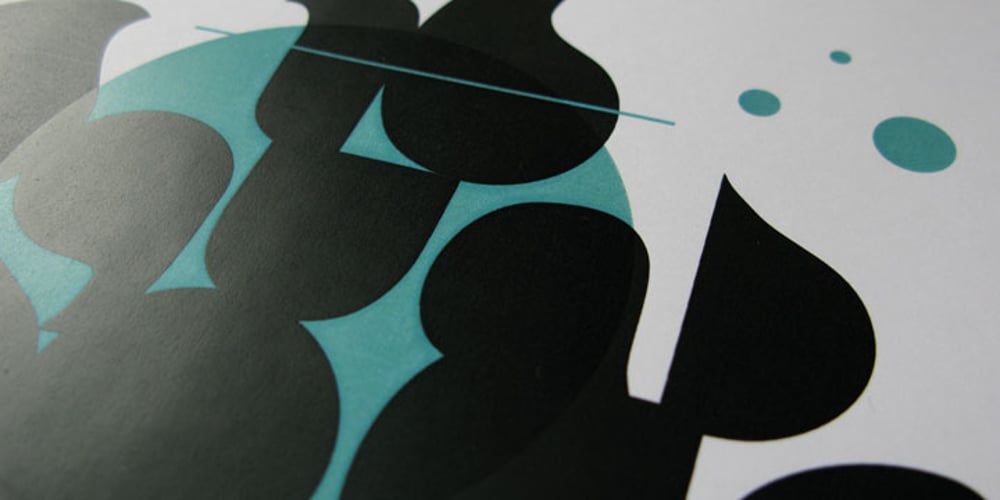
Squab
Squab font
Squab Font Family was designed by Tadas Karpavicius and published by Tadas. Squab contains 1 styles and family package options. The Squab typeface was designed to be simple, big and bubbly for projects from poster to t-shirt design or animation.